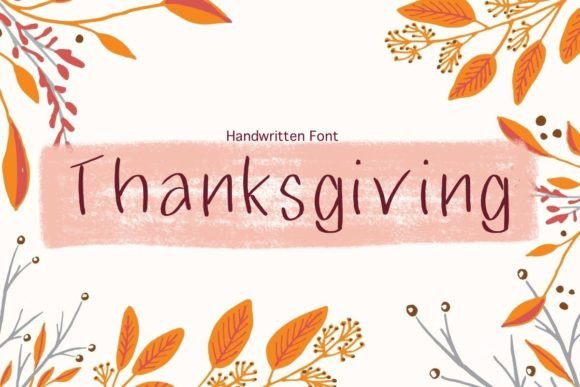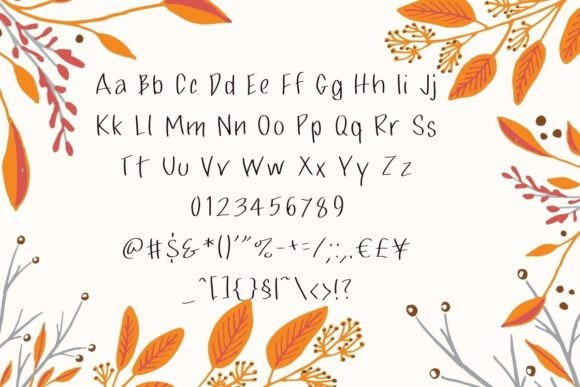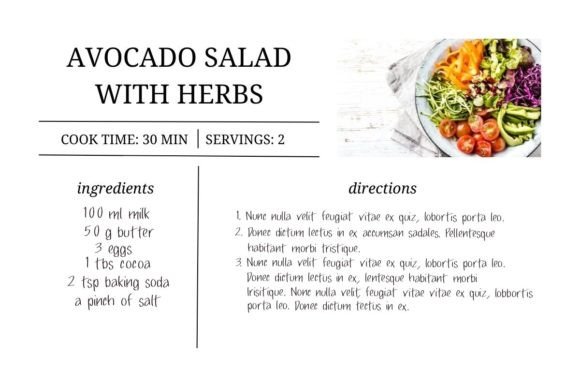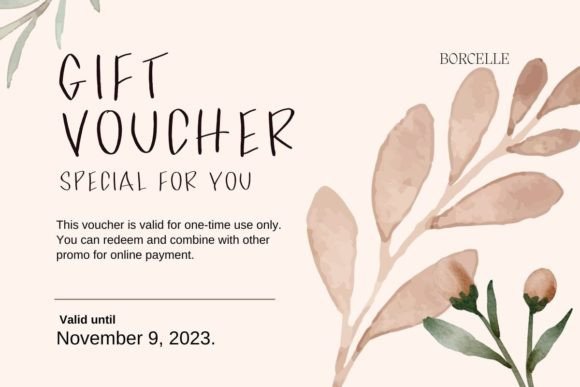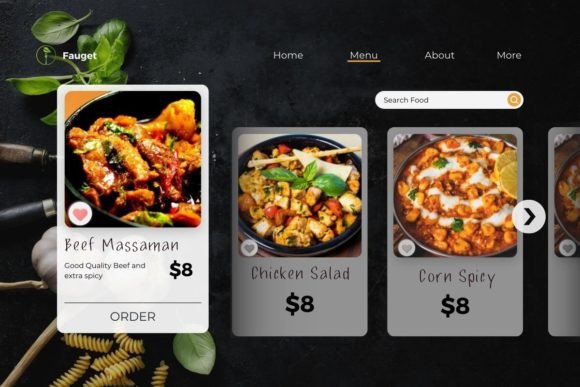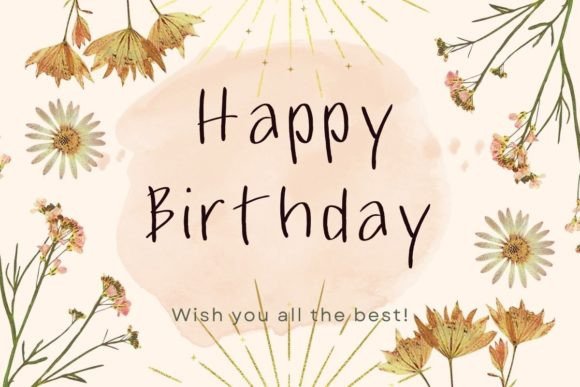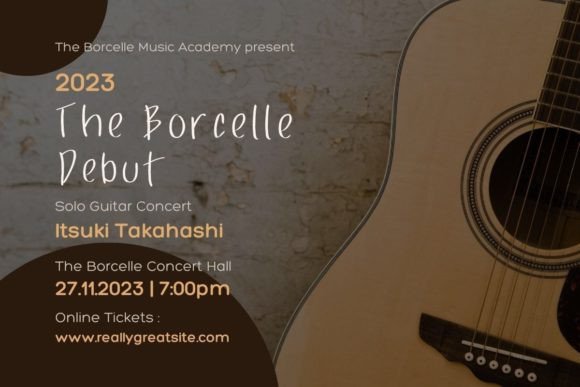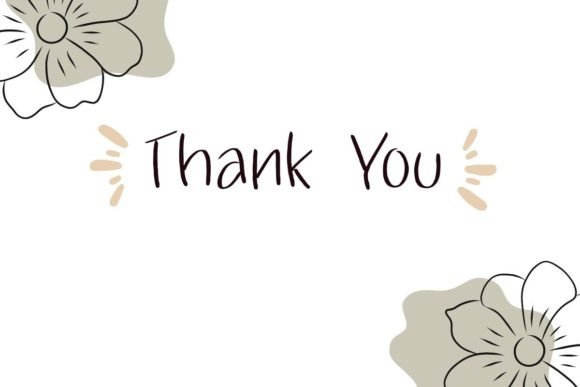
Thanksgiving Font
About Thanksgiving Font
“Thanksgiving” is a fun and friendly handwritten font that adds a touch of warmth and charm to your designs. This versatile font is well-suited for a wide range of applications, making it a potential favorite for various creative projects, regardless of the occasion.
One of the standout features of “Thanksgiving” is its ability to infuse your text with a sense of playfulness and friendliness. The handwritten style of the font adds a personal and inviting touch to your projects, making it ideal for designs that aim to connect with your audience on a warm and engaging level.
“Thanksgiving” is adaptable and suitable for various design contexts. Whether you’re working on crafts, digital design, presentations, greeting cards, or any other project, this font brings a sense of creativity and liveliness to your work.
Visualize using “Thanksgiving” for your greeting cards and how it makes your messages come alive with a joyful and friendly vibe. Imagine incorporating this font into your digital designs, making your content more approachable and relatable. When you choose “Thanksgiving” for your creative projects, it has the potential to become your go-to font, adding a touch of charm and personality to your work.
In conclusion, “Thanksgiving” is more than just a font; it’s a versatile design tool that brings a sense of warmth and friendliness to your creative projects. Its friendly handwritten style makes it an ideal choice for a wide range of applications, ensuring that your designs are both approachable and delightful. Make “Thanksgiving” your favorite go-to font, and watch as it enhances your designs, making them enjoyable and memorable, no matter the occasion.